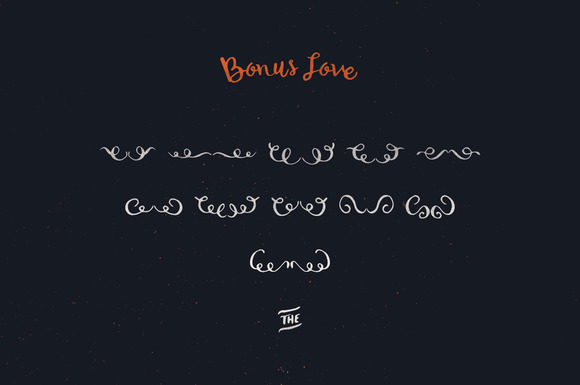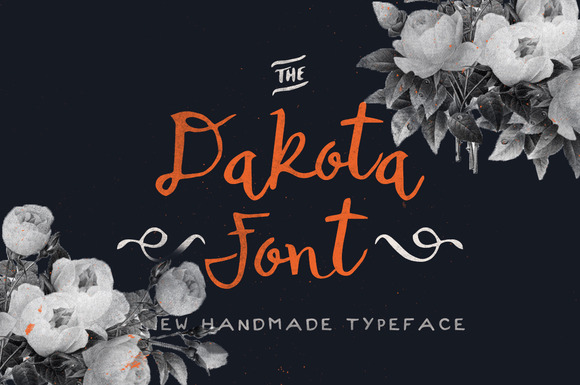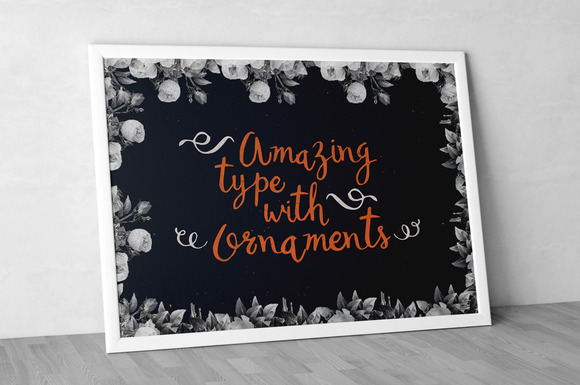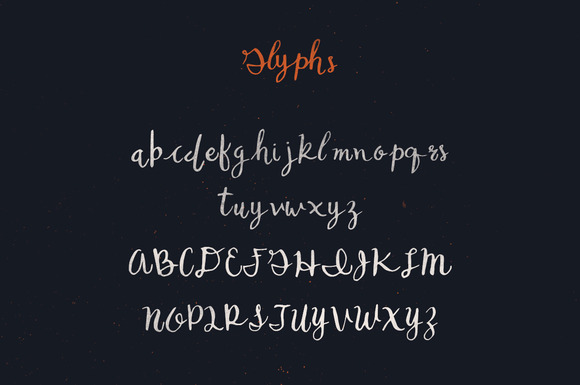
Dakota Font + Bonus
Ok so this is a new script font i really like it, very easy to play with it. You don’t know how? easy i made a video for you. https://vimeo.com/122669138
• Bonus Ornaments in the font